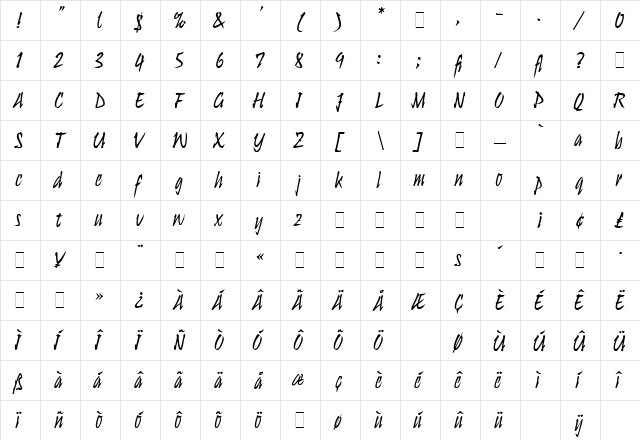
Ulysses LET Plain
Design Context for Ulysses LET Typeface
Ulysses LET takes a measured approach to typography — its balanced proportions and neutral character make it a reliable workhorse for both digital and print work.